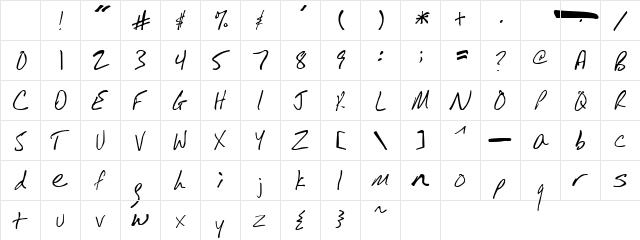
Rees Regular
Design Context for Rees
Rees is a composed and adaptable typeface that performs quietly and consistently across a wide range of design contexts.